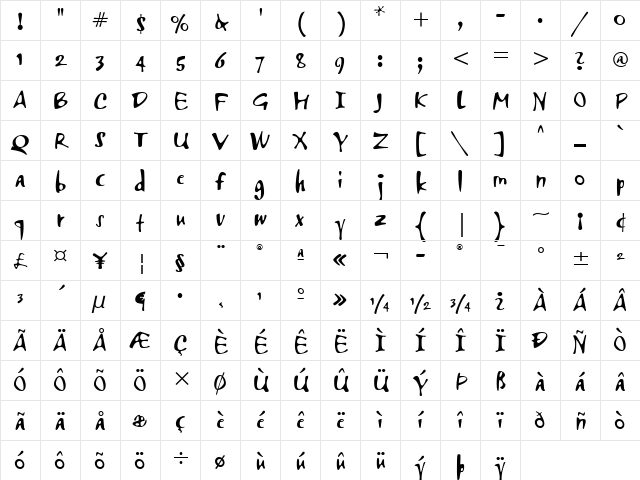
Airstream ITC Regular Free Font
Airstream ITC Regular
Foundry: as an unpublished work by Galapagos Design Group, Inc
Design Context for Airstream ITC
Airstream ITC is a composed and adaptable typeface that performs quietly and consistently across a wide range of design contexts.